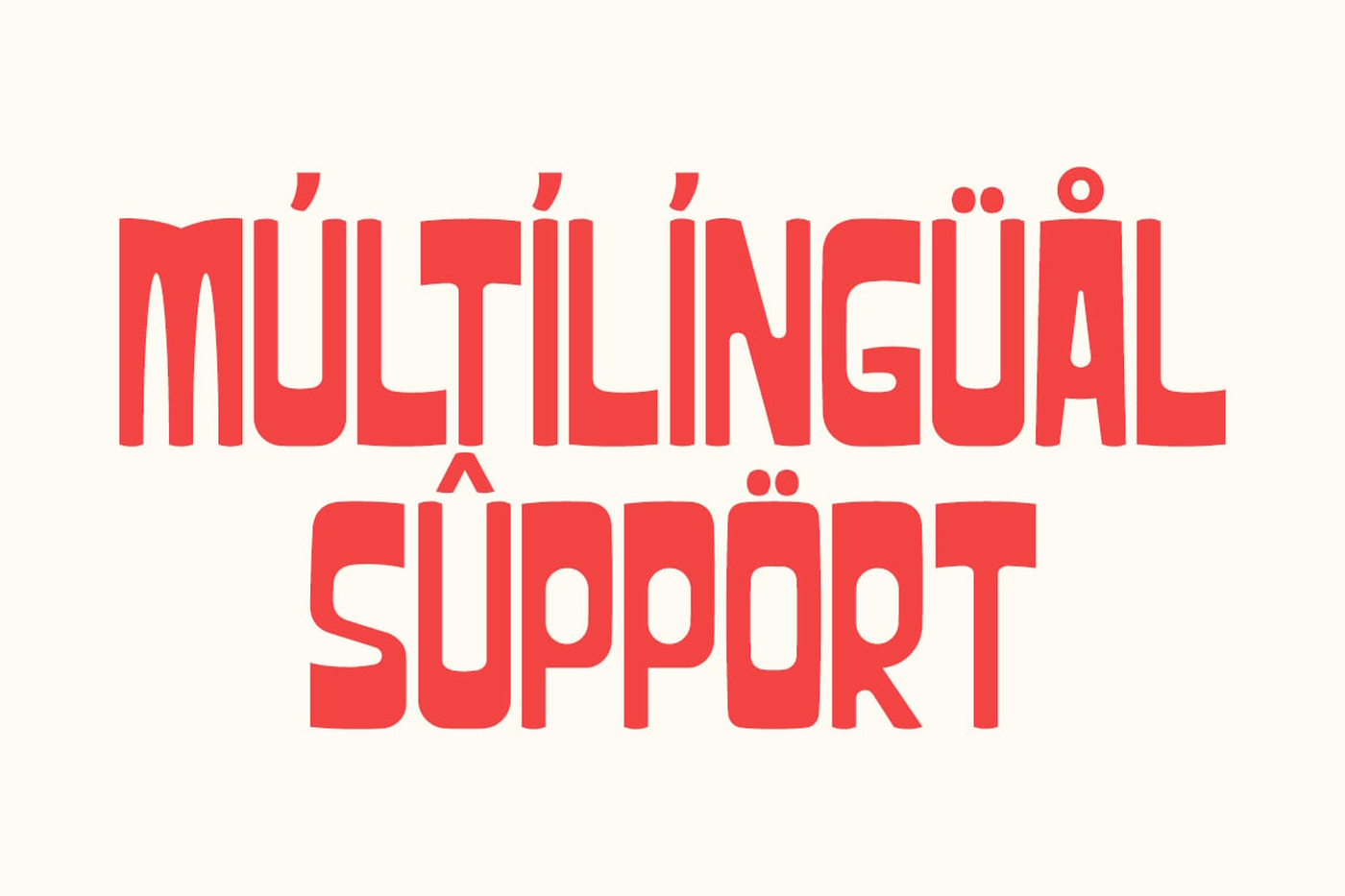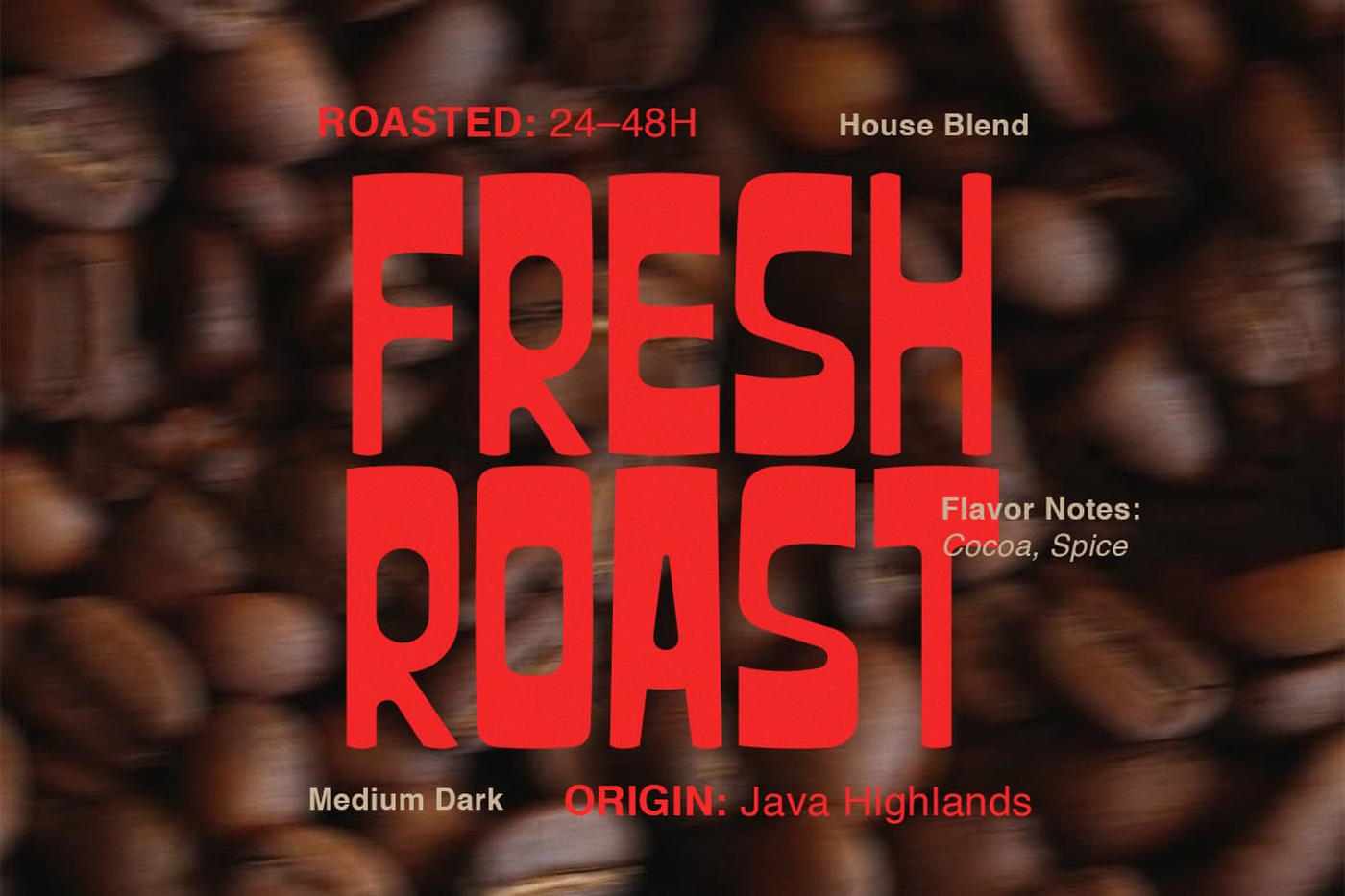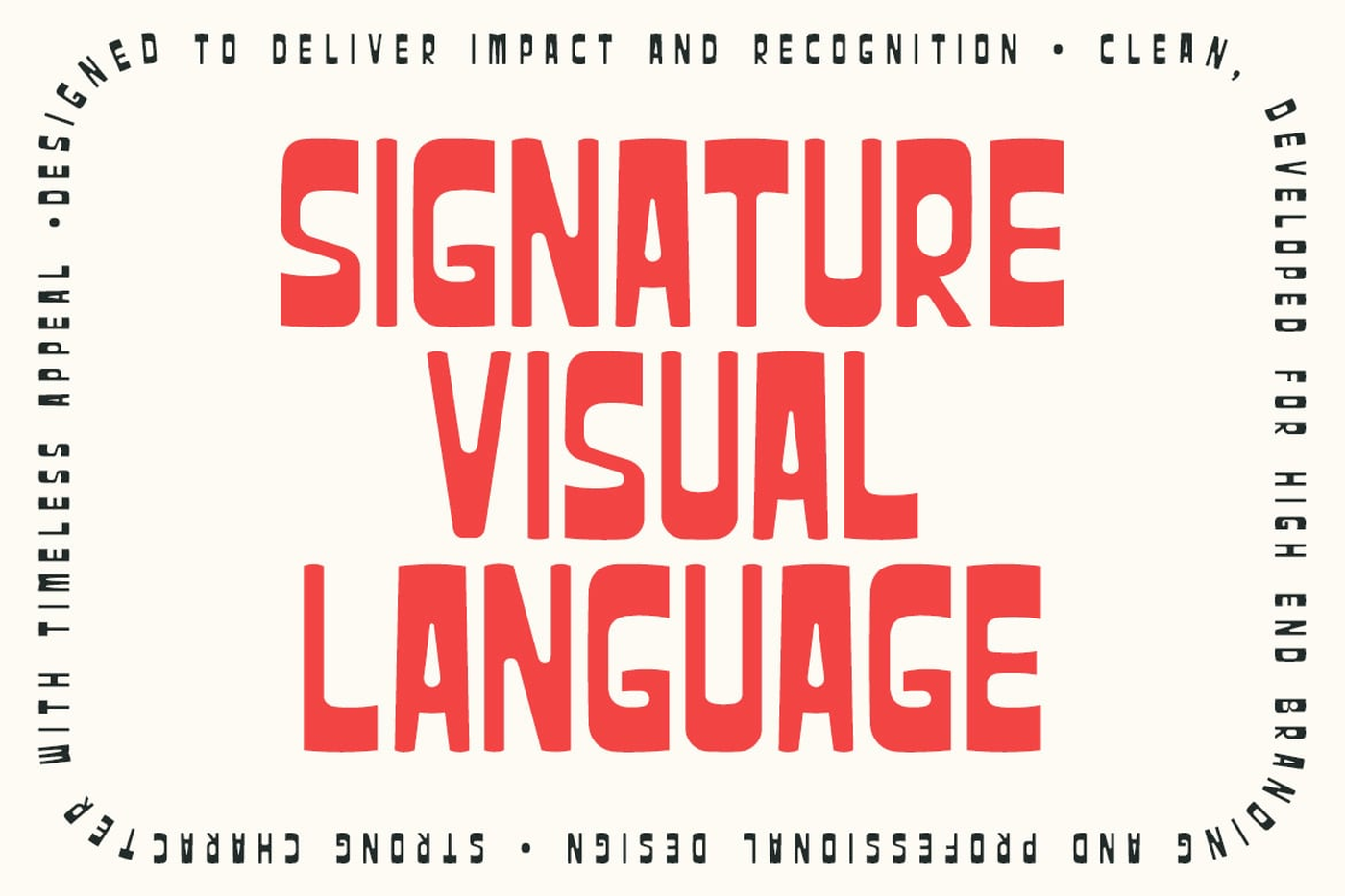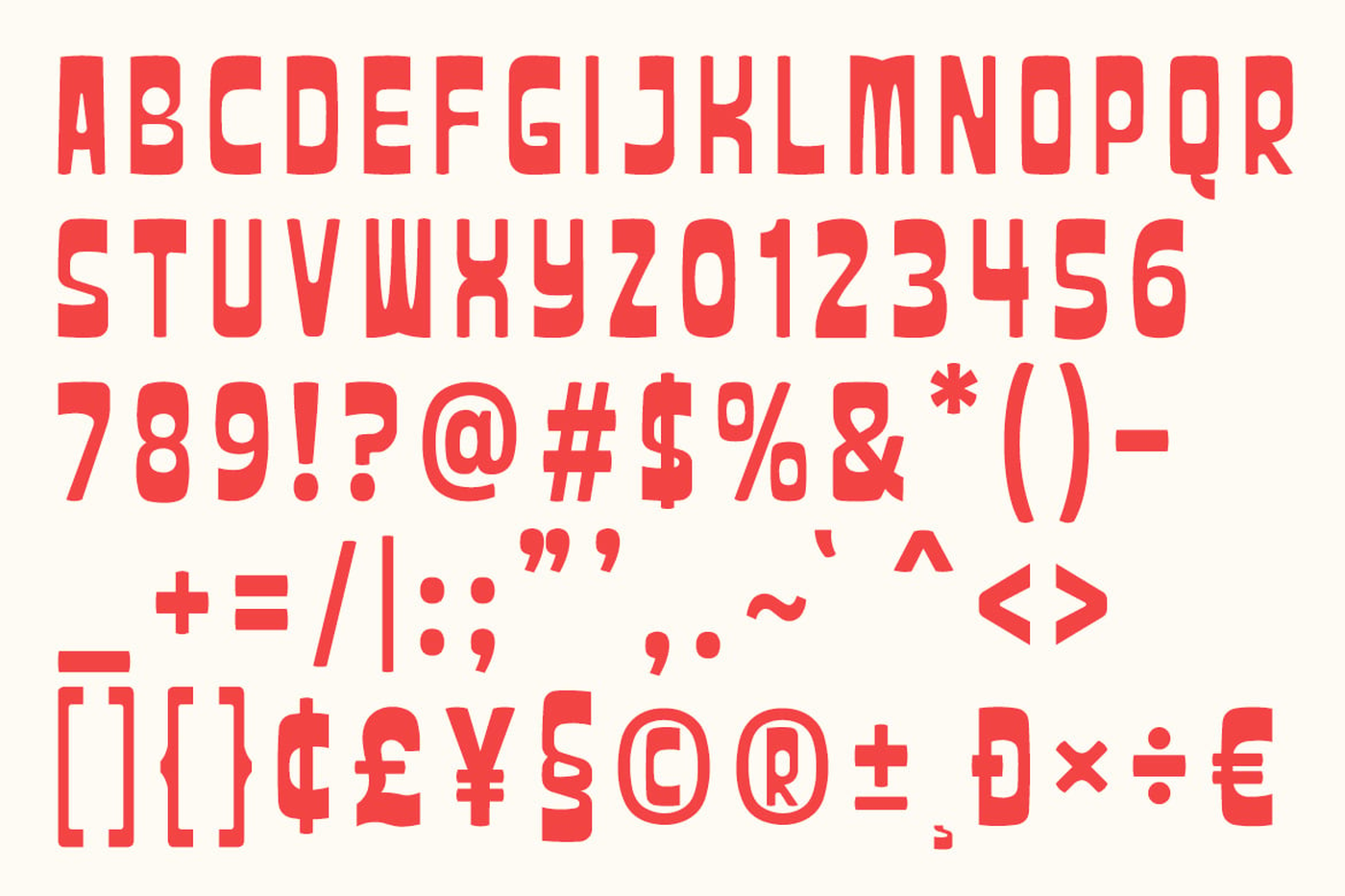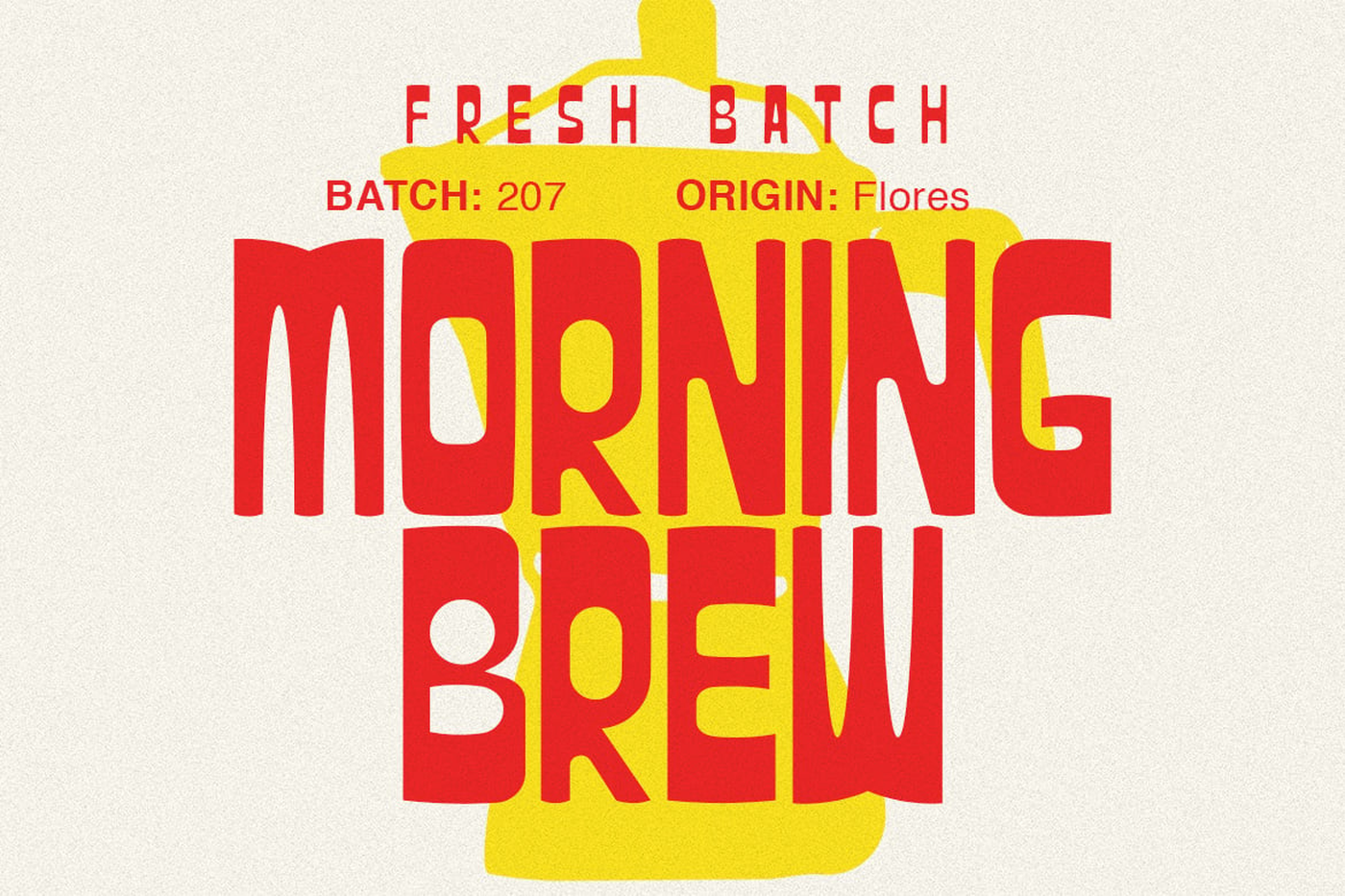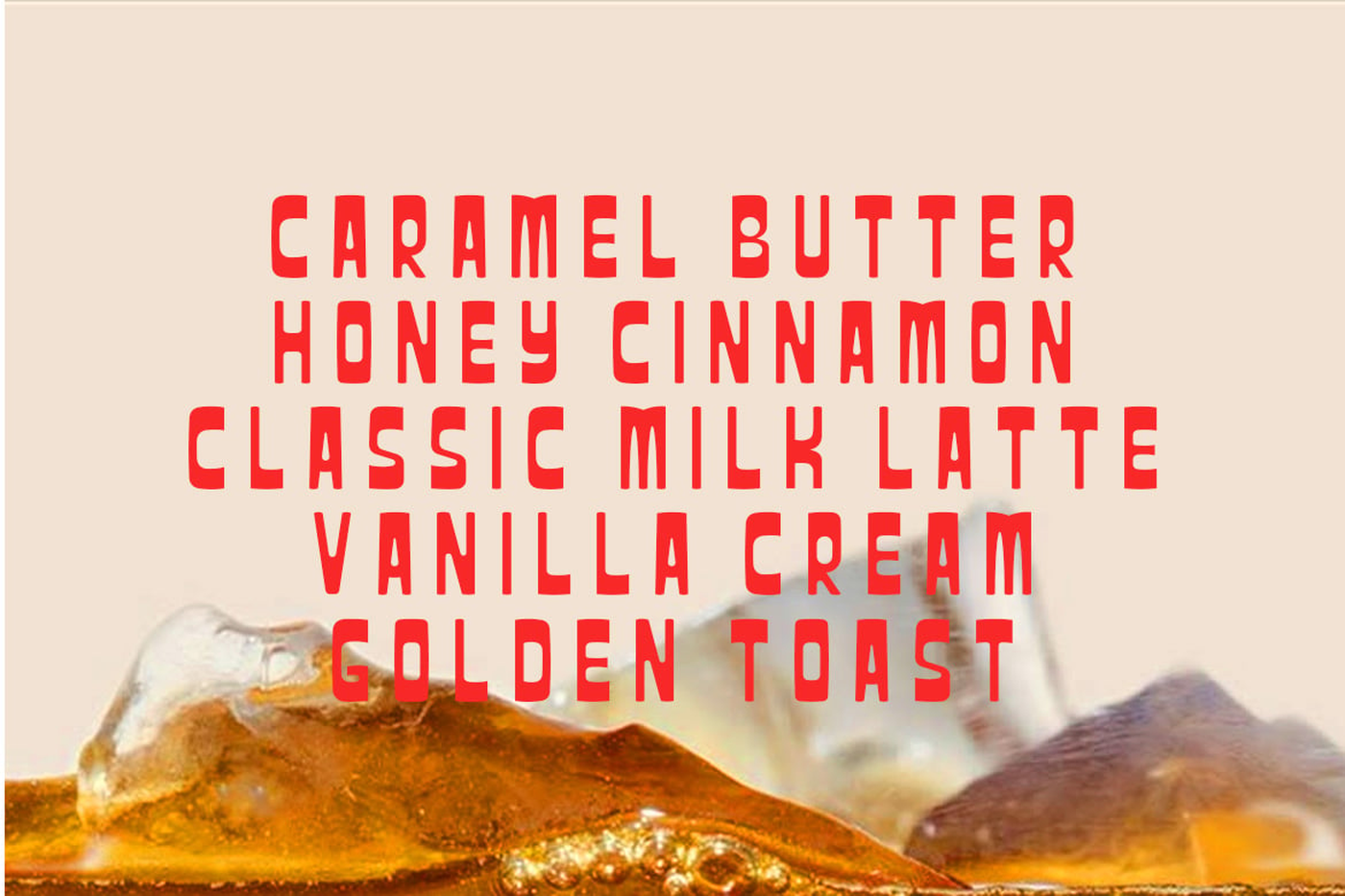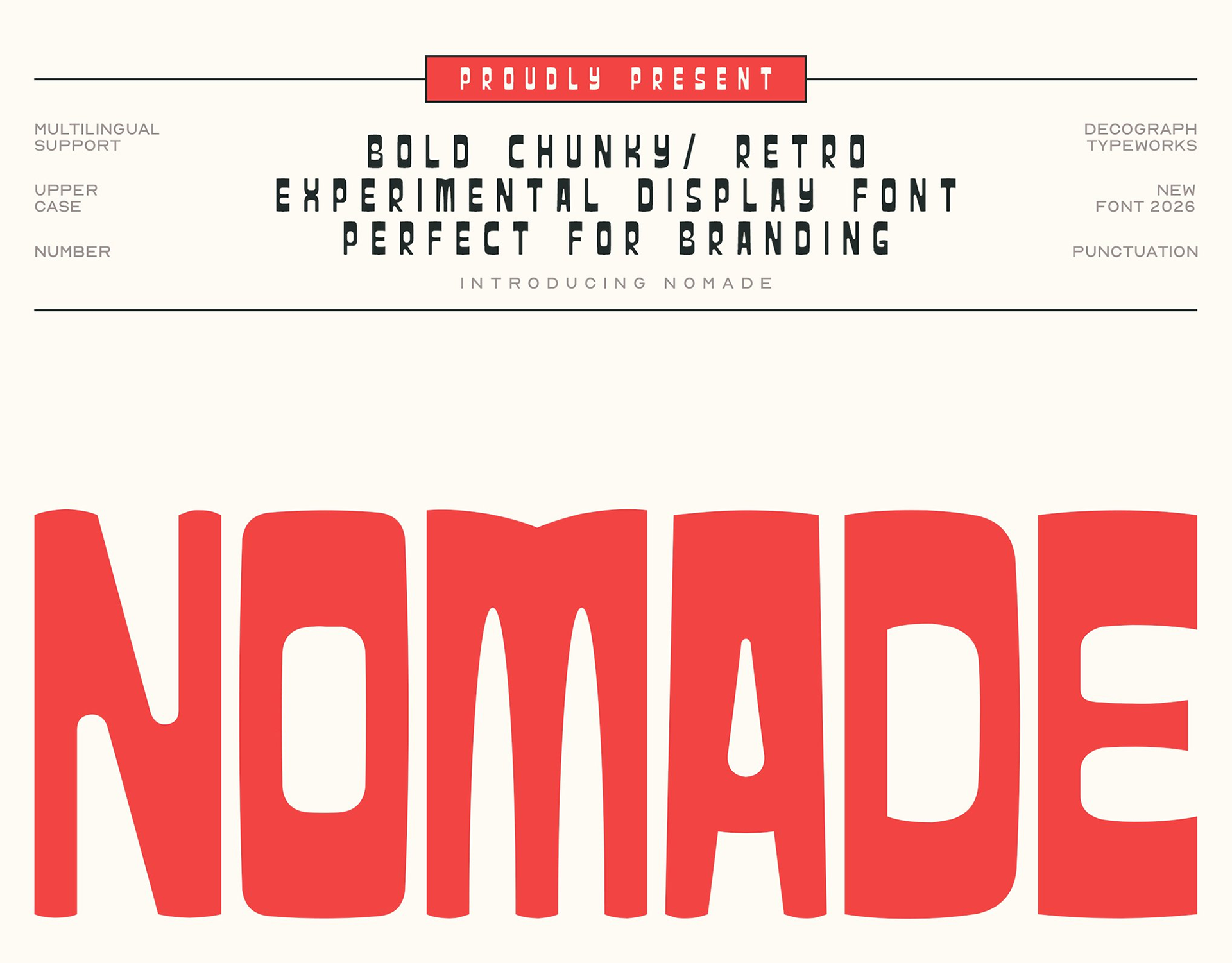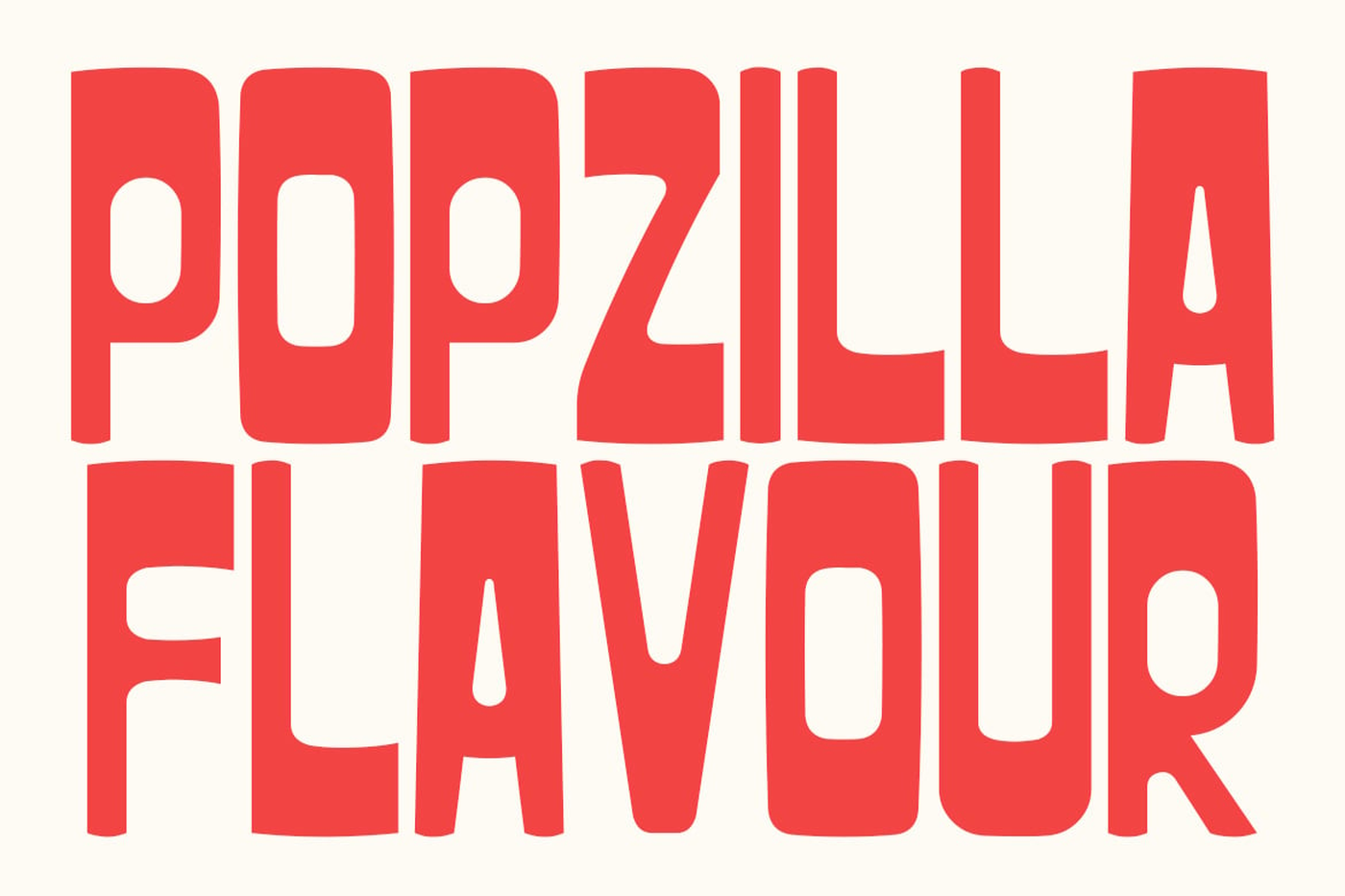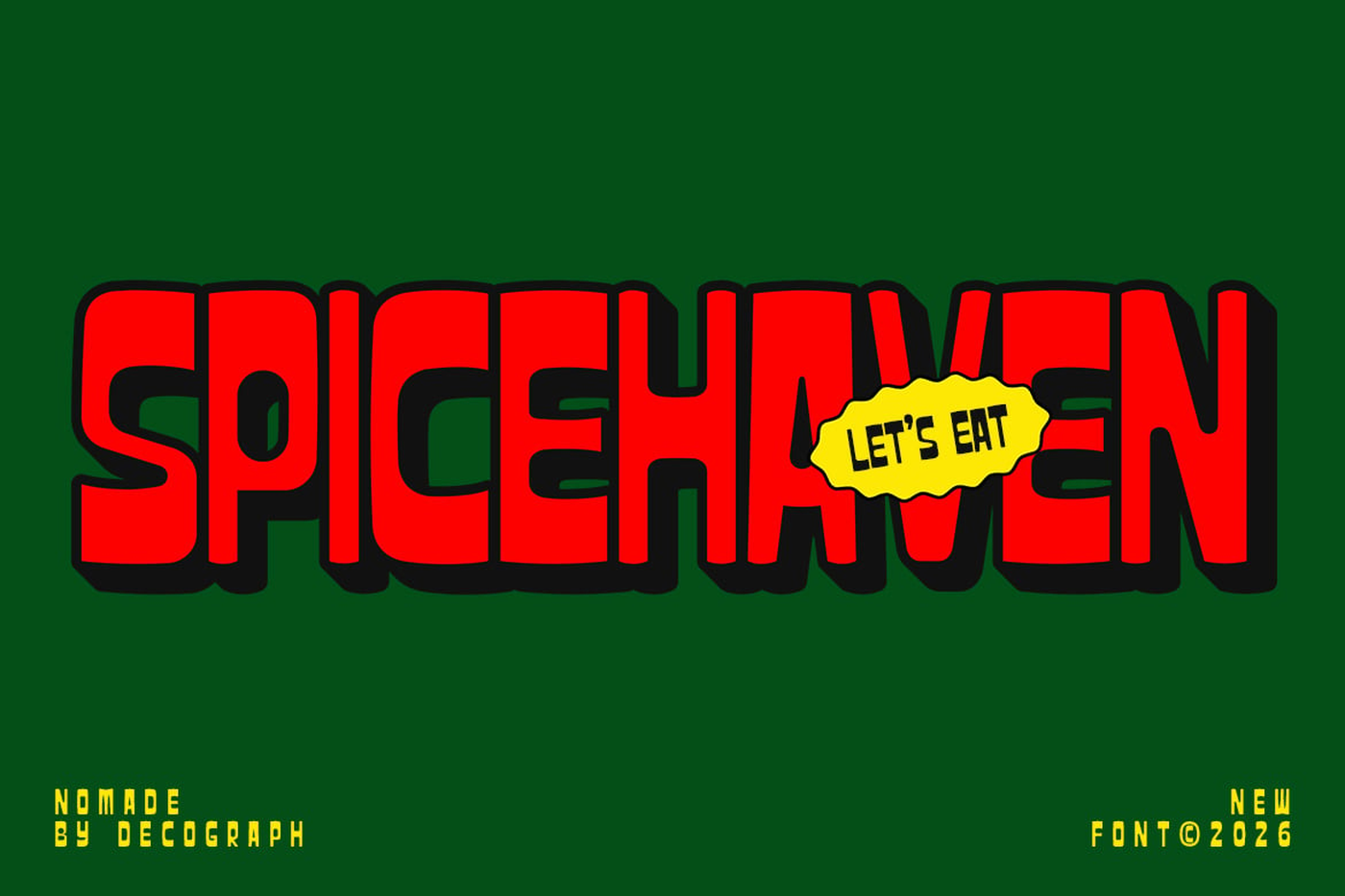
Nomade - Bold Chunky Display Font
Nomade is a strong and contemporary typeface built with thick geometric shapes and clean structure. Its bold presence and simplified forms create a modern visual identity that feels confident, minimal, and highly impactful. The unique letter construction adds an experimental edge while maintaining clarity and readability.
Font: Nomade